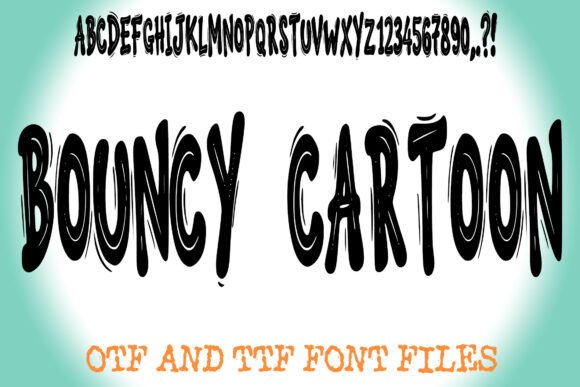
Bringing Joy to Your Designs with Bouncy Cartoon Font
Have you ever been in the middle of a design project, and suddenly, it feels like something’s missing? You’re trying to convey a playful, friendly vibe, but the font you’re using just isn’t cutting it. I recall working on a children’s book project where I struggled to find the perfect font. The client wanted something that would make the story come alive, but I just couldn’t seem to find the right fit. That’s when I stumbled upon Bouncy Cartoon font, and it completely transformed my design!
The Magic of Bouncy Cartoon Font
Bouncy Cartoon font is more than just a typeface – it’s a way to inject a burst of pure joy and playful energy into your designs. Each character features a delightful wobble and an expressive, hand-drawn feel, making it perfect for projects that need to feel light-hearted, friendly, and full of fun. Whether you’re working on children’s books, comic strips, animated titles, vibrant branding, or any design calling for a touch of whimsical charm, Bouncy Cartoon font is the ideal choice.
Why Bouncy Cartoon Will Make Your Designs Pop
• Irresistibly Playful: Instantly convey happiness, excitement, and a friendly vibe.
• Versatile for Fun Themes: Perfect for children’s products, toy packaging, game design, YouTube thumbnails, social media graphics, party invitations, and more!
• Hand-Drawn Charm: Its uneven baselines and slightly distorted shapes give it an authentic, hand-lettered appeal that jumps right off the page (or screen!).
• ✨ The playful, bouncy effect that adds energy to any design.
• ✅ The hand-drawn feel that gives it a unique, authentic look.
• 🎉 The versatility of the font, making it suitable for a wide range of projects.
⚠️ One thing to note is that Bouncy Cartoon font can be a bit overpowering if not used thoughtfully. Its playful nature works best when used in moderation, and it’s essential to balance it with other design elements.
🤔 Additionally, some users might find that the font’s uneven baselines and distorted shapes can make it challenging to use in certain design contexts. However, with a little creativity, you can work around these limitations and create stunning designs.
The Designer Inspiration Behind Bouncy Cartoon Font
The story behind Bouncy Cartoon font is one of creativity and playfulness. Imagine a designer who loves to draw and experiment with different letterforms. They started by sketching out letters on paper, trying to capture the bouncy, energetic feel they wanted to convey. As they refined their sketches, they digitized the font, making sure it would work seamlessly in various design contexts. The result is a font that’s both fun and functional.
Q: What makes Bouncy Cartoon font so special?
A: Bouncy Cartoon font’s unique blend of playfulness, hand-drawn charm, and versatility makes it an excellent choice for a wide range of design projects.
Q: Can I combine Bouncy Cartoon font with other fonts?
A: Absolutely! Bouncy Cartoon font pairs well with a variety of fonts. Experiment with different combinations to find the perfect balance for your design.